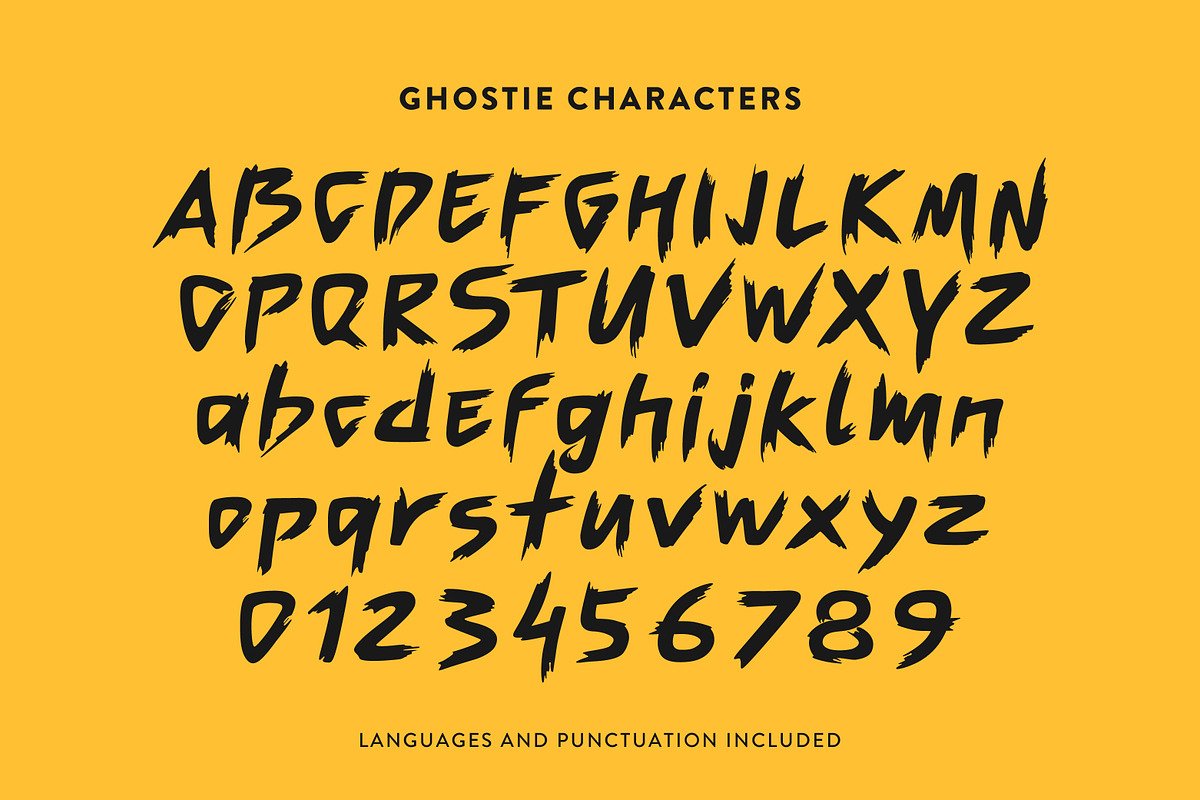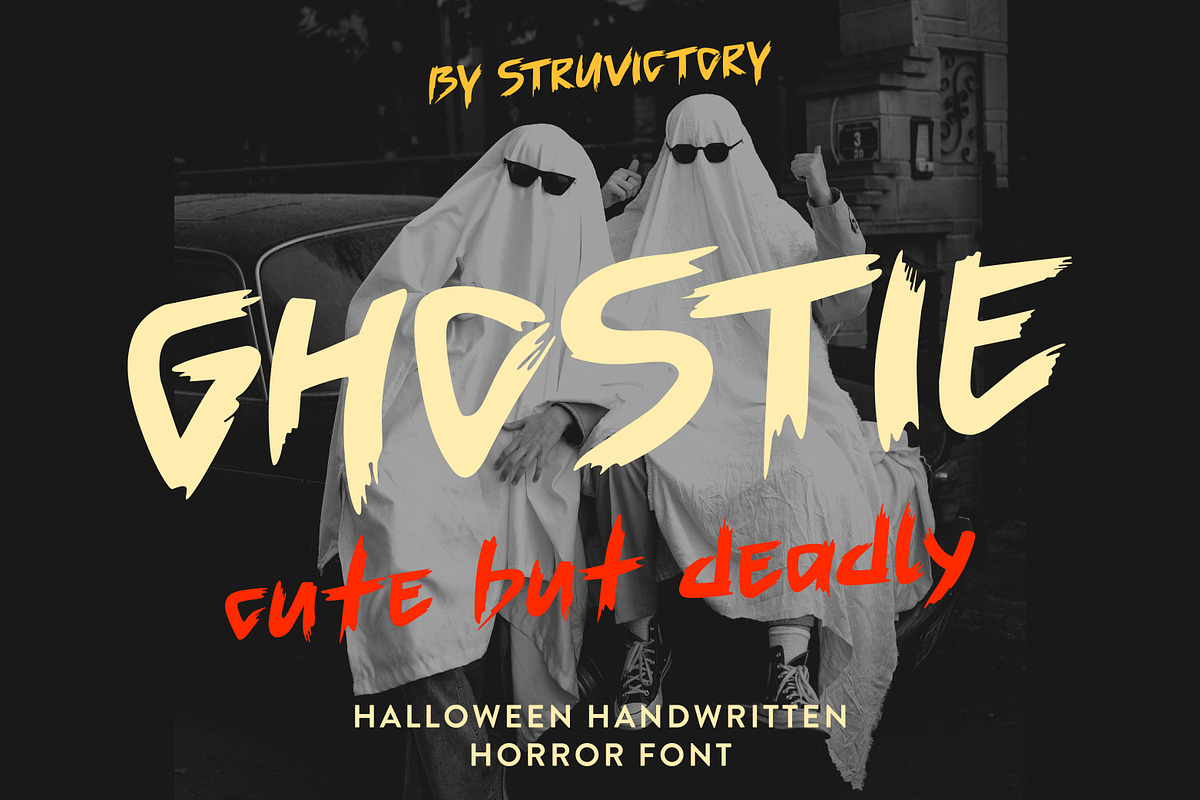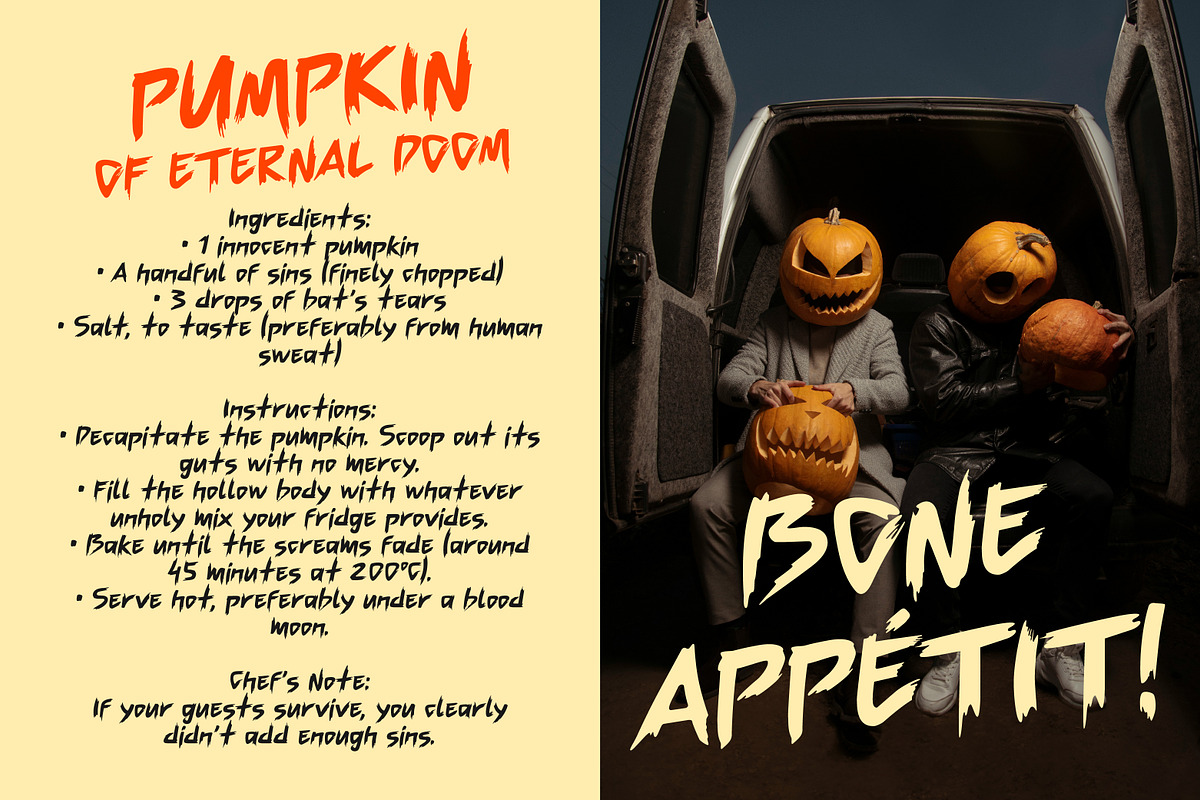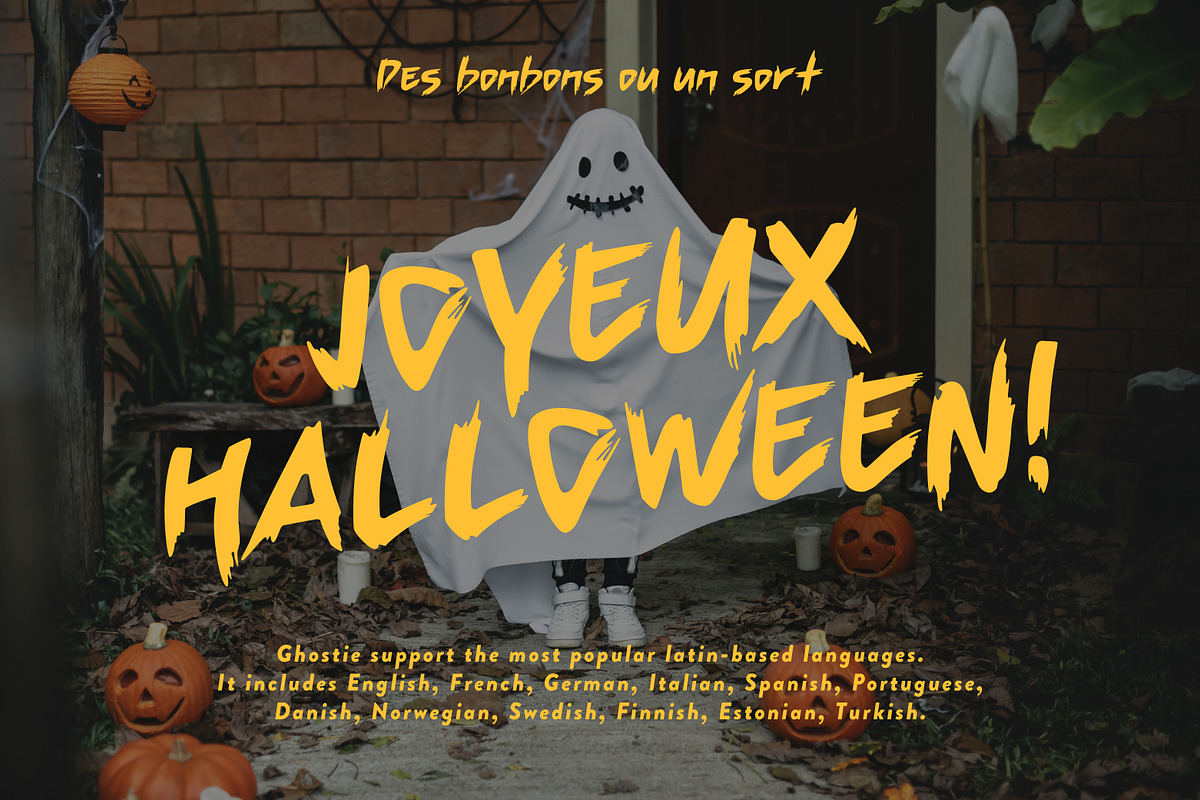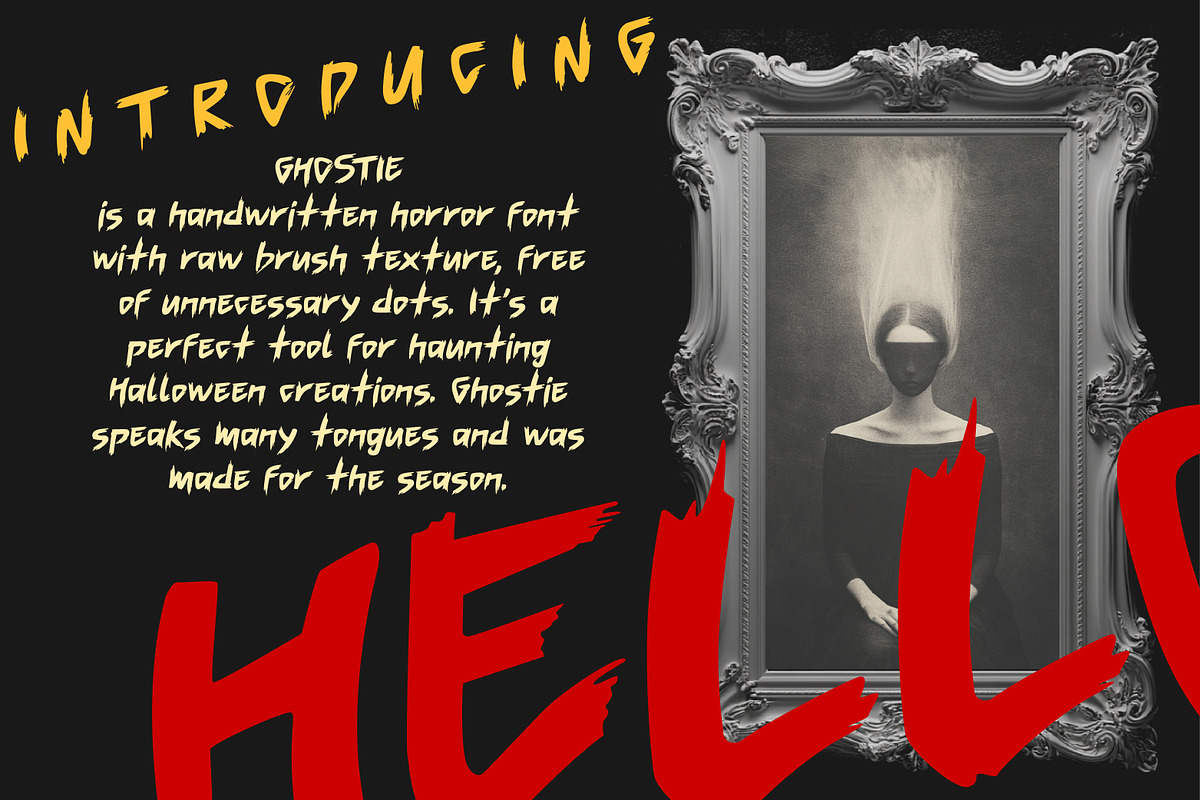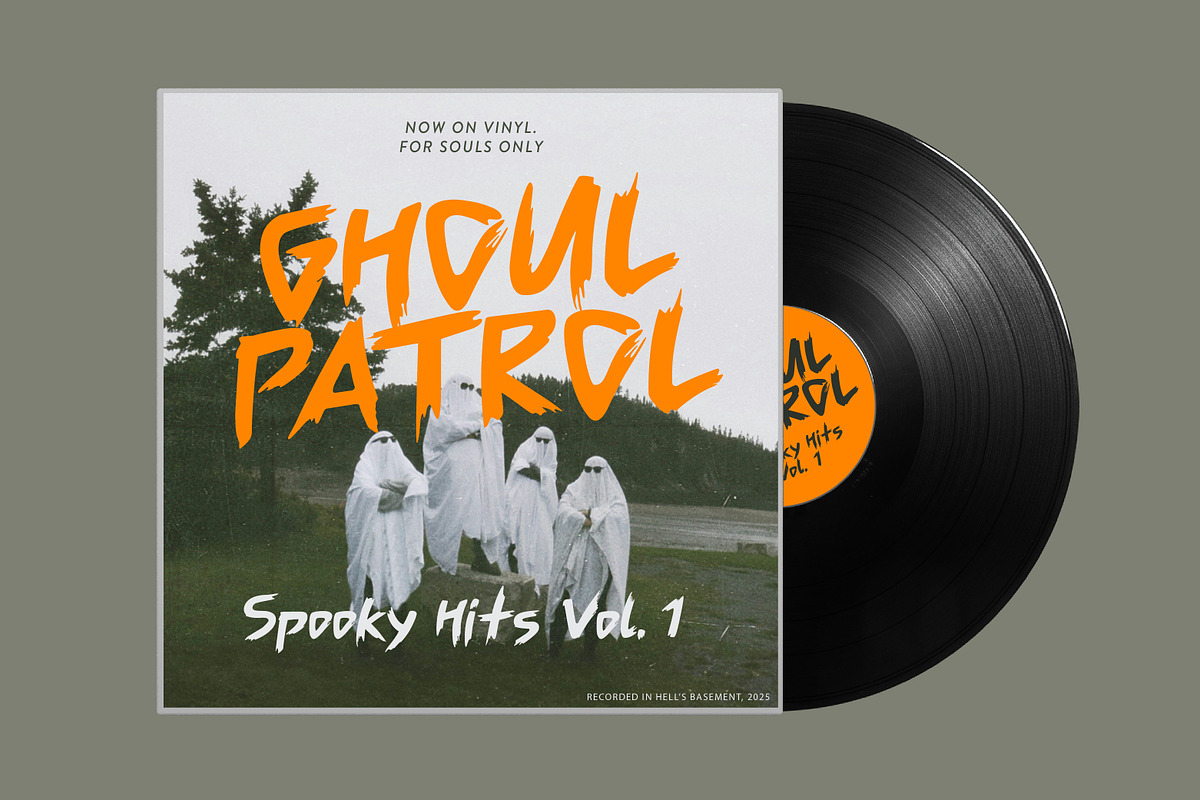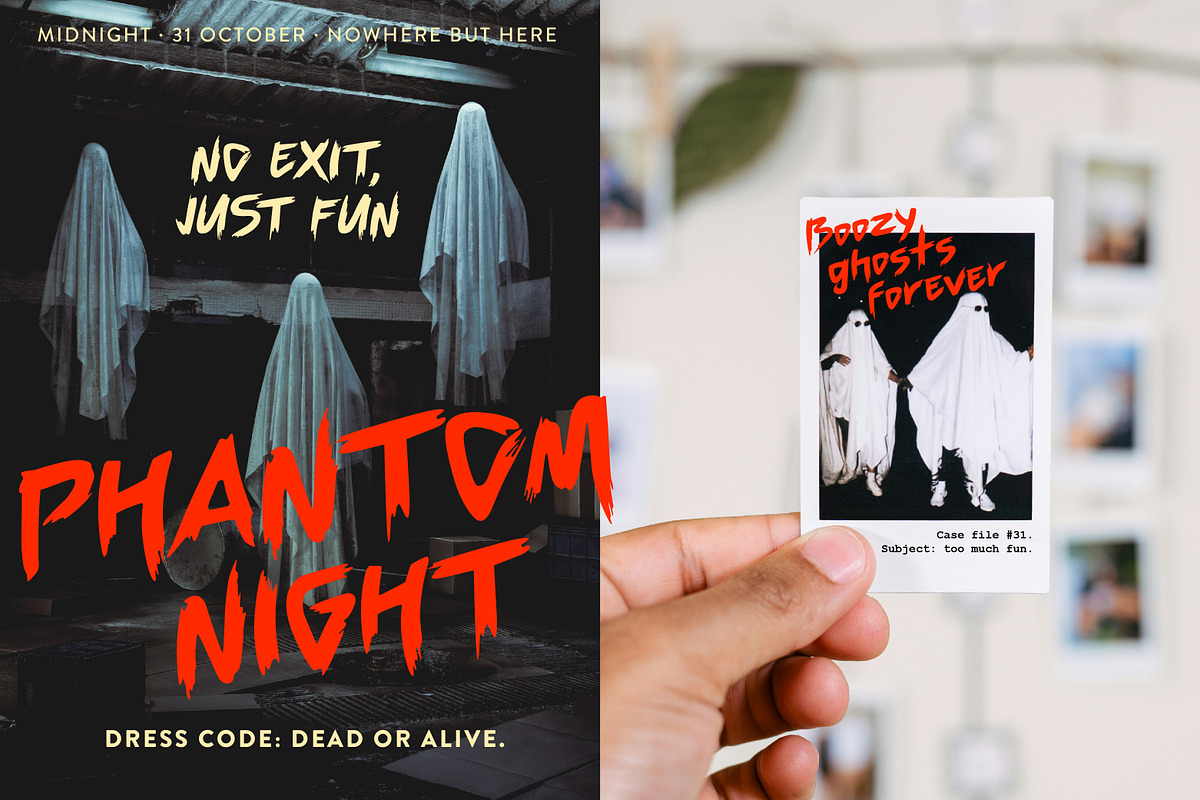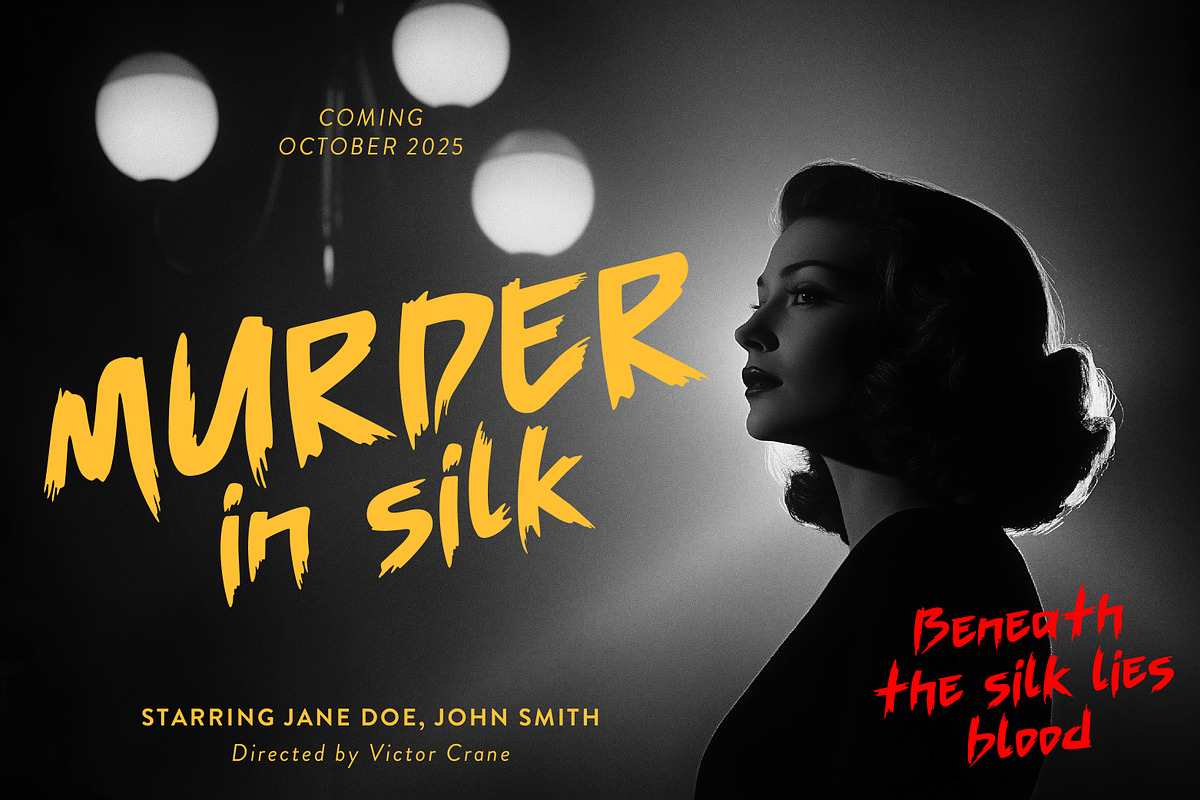
Ghostie Horror Halloween Handwritten
Ghostie is a hand-painted horror handwritten font inspired by vintage horror posters and Halloween classics. Rough brush strokes, dripping details, and natural imperfections give it a spooky yet playful personality. Perfect for party flyers, merch, album covers, movie titles, or seasonal branding, Ghostie brings the right mix of creepiness and irony — making your designs both scary and fun.
Ghostie supports the most popular latin-based languages, you can check the symbol you need by typing a couple of words in the font preview box.